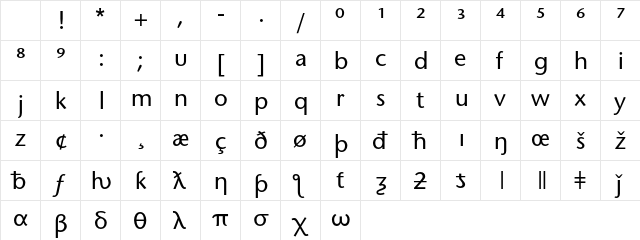
Complete ITC Stone Sans Std Phonetic glyph index. Displaying only characters natively supported by ITC Stone Sans Std Phonetic font.
ITC Stone Sans Std is a composed and adaptable typeface that performs quietly and consistently across a wide range of design contexts.